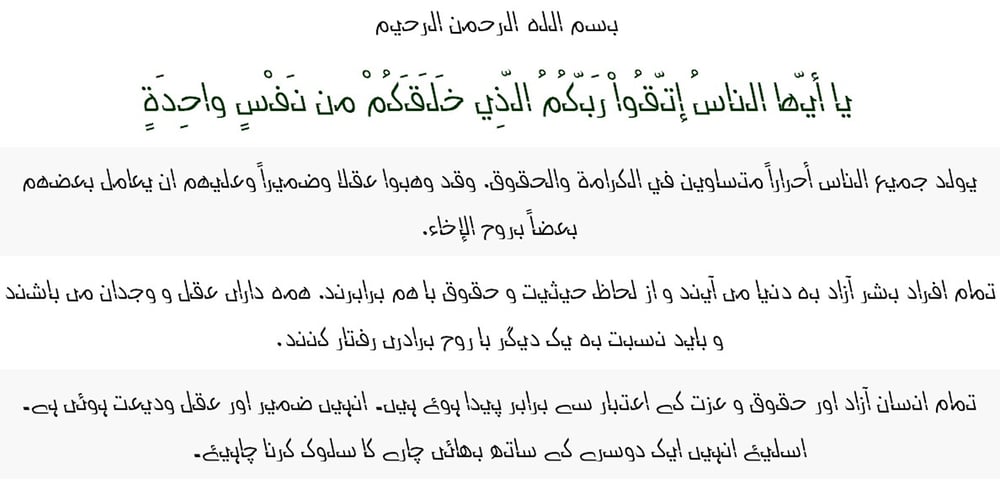
Raqmi Font Family was designed by Saad D. Abulhab and published by Arabetics. Raqmi contains 4 styles and family package options. Raqmi was designed as a serif like font with relatively uniform glyph thicknesses, perfect simplified straight lines and curves, and emphasized isolated letters. This font family supports all Arabetic scripts covered by Unicode 6.1, and the latest Arabic Supplement and Extended-A Unicode blocks, including support for Quranic texts. It includes two weights: regular and light, each of which has normal and left-slanted Italic versions. The script design of this font family follows the Arabetics Mutamathil Taqlidi style utilizing varying x-heights. The Mutamathil Taqlidi type style uses one glyph per every basic Arabic Unicode character or letter, as defined by the Unicode Standards, and one additional final form glyph, for each freely-connecting letter of the Arabic cursive text. Raqmi includes the required Lam-Alif ligatures in addition to all vowel diacritic ligatures. Soft-vowel diacritic marks (harakat) are selectively positioned with most of them appearing on similar high and low levels—top left corner—, to clearly distinguish them from the letters. Tatweel is a zero-width glyph.